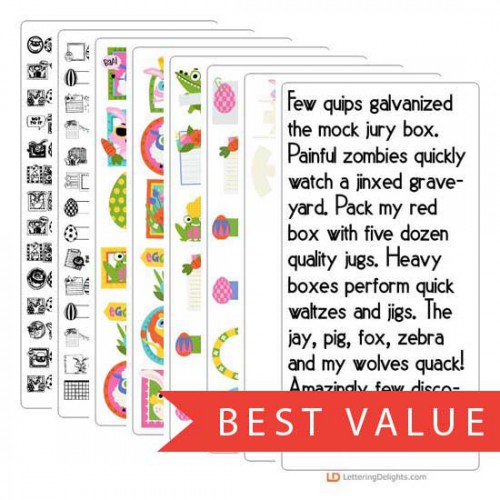
Easter Brigade - Big Bundle
This adorable collection features Easter animals and journaling imagery, perfect for fun cards, crafts, gifts, planner stickers, scrap book pages, parties, classrooms and more!
PN Workaholic Light - FN
This hand-written script is a bit bouncy...
PN Gidzouka - FN
This hand-crafted slab serif is toggled, whimsical, and full of texture...
PN Junkberry - FN
This hand-written print, is whimsical with no descenders in the lowercase...
PN Junkberry Bold - FN
This hand-written print, is whimsical with no descenders in the lowercase...
PN Yellow Banana - FN
This hand-crafted, sans serif is a just a bit crafty and whimsy...
PN Yellow Banana Bold - FN
This hand-crafted, sans serif is a just a bit crafty and whimsy...
DB Easter Brigade - DB
This adorable doodlebat font features 26 Easter animals and imagery, perfect for fun cards, crafts, ..
DB Easter Brigade - Journaling - DB
This adorable doodlebat font features 26 Easter animals and journaling imagery, perfect for fun card..
Easter Brigade - GS
This adorable graphic set features 26 Easter animals and imagery, perfect for fun cards, crafts, gif..
Easter Brigade - CS
This adorable cuttable graphic set features 26 Easter animals and imagery, perfect for fun cards, cr..
Easter Brigade - Journaling - GS
This adorable graphic set features 26 Easter animals and journaling imagery, perfect for fun cards, ..
Easter Brigade - Journaling - CS
This adorable cuttable graphic set features 26 Easter animals and journaling imagery, perfect for fu..
Easter Brigade - CP
This fun cut project set features adorable easter baskets perfect for candy and flower pot decor...
Easter Brigade - PP
This beautiful paper pack coordinates with oru Easter Brigade Collection...
Easter Brigade - AL
This fun egg alphabet coordinates with oru Easter Brigade Collection...